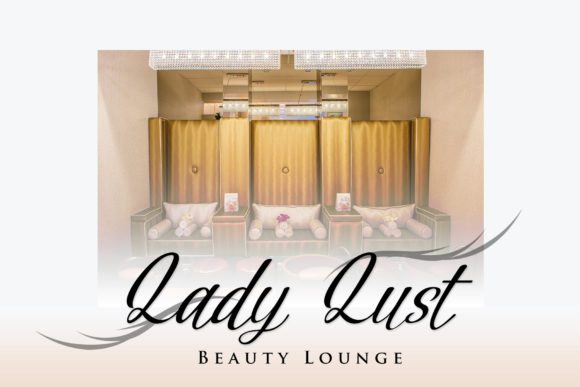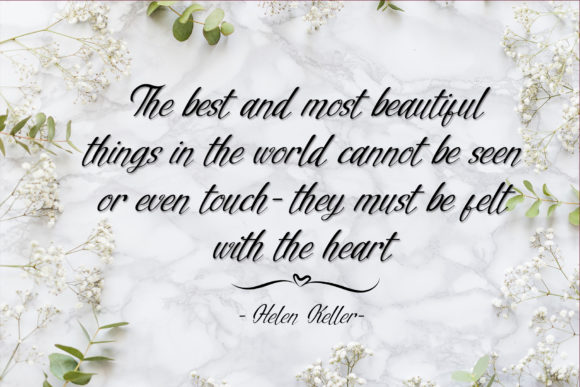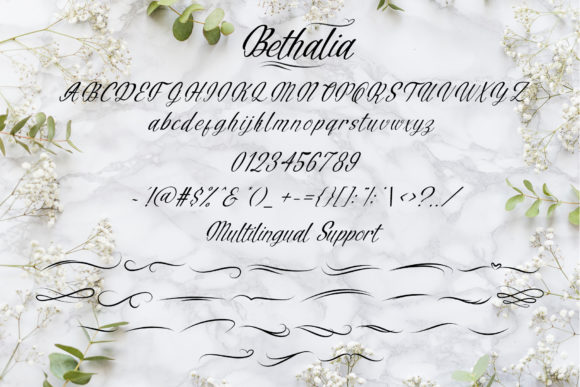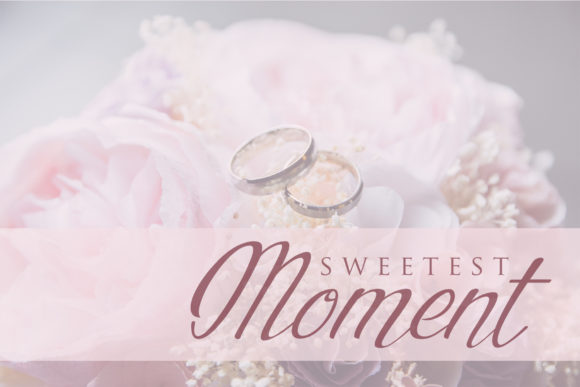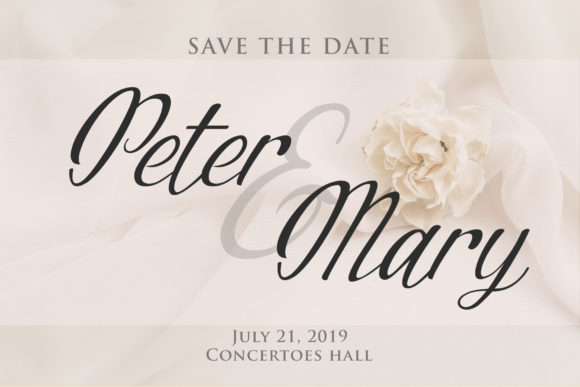
Bethalia Font: The Perfect Choice for Delicate Designs
In the world of typography, fonts play a crucial role in conveying the tone and personality of a brand or design. For designers and crafters looking for a simple, clean, and casual script, Bethalia Font is an excellent choice. This beautiful font is ideal for a variety of design applications, including logos, branding, packaging, signages, quotes, and more.
What is Bethalia Font?
Bethalia Font is a modern script font that exudes elegance and sophistication. Its delicate appearance makes it perfect for designs that require a touch of refinement and poise. The font features smooth lines, subtle curves, and a relaxed flow, giving it a casual yet refined feel.
Key Features of Bethalia Font
• Simple and Clean: Bethalia Font boasts a simple and clean design, making it easy to read and versatile for various applications.
• Casual Script: The font has a casual script style that adds a touch of personality to any design.
• Delicate Appearance: Bethalia Font’s delicate appearance makes it perfect for designs that require a subtle yet elegant look.
• Highly Legible: The font is highly legible, even at small sizes, making it suitable for a wide range of design applications.
Uses of Bethalia Font
Bethalia Font is a versatile font that can be used in various design applications, including:
• Logos and Branding: Create a lasting impression with Bethalia Font’s elegant and sophisticated design.
• Packaging: Add a touch of refinement to your packaging designs with this beautiful font.
• Signages: Use Bethalia Font to create eye-catching signages that convey your message with style.
• Quotes and Typography: Add a touch of elegance to your quotes and typography designs with Bethalia Font.
• Stationery and Paper Goods: Create beautiful stationery and paper goods, such as invitations, greeting cards, and journals, with Bethalia Font.
Why Choose Bethalia Font?
With so many fonts available, why choose Bethalia Font? Here are a few reasons:
• Unique and Distinctive: Bethalia Font has a unique and distinctive style that sets it apart from other fonts.
• Elegant and Sophisticated: The font exudes elegance and sophistication, making it perfect for designs that require a touch of refinement.
• Easy to Read: Bethalia Font is highly legible, making it easy to read and understand.
• Versatile: The font is versatile and can be used in a wide range of design applications.
Tips for Using Bethalia Font
Here are a few tips for using Bethalia Font:
• Pair with Other Fonts: Pair Bethalia Font with other fonts to create a unique and visually appealing design.
• Experiment with Sizes: Experiment with different font sizes to create visual hierarchy and emphasis.
• Use for Headings and Titles: Use Bethalia Font for headings and titles to add a touch of elegance and sophistication.
In conclusion, Bethalia Font is a beautiful and versatile font that is perfect for designers and crafters looking for a simple, clean, and casual script. Its delicate appearance makes it ideal for a wide range of design applications, from logos and branding to packaging and signages. With its unique and distinctive style, elegant and sophisticated design, and high legibility, Bethalia Font is an excellent choice for any design project.